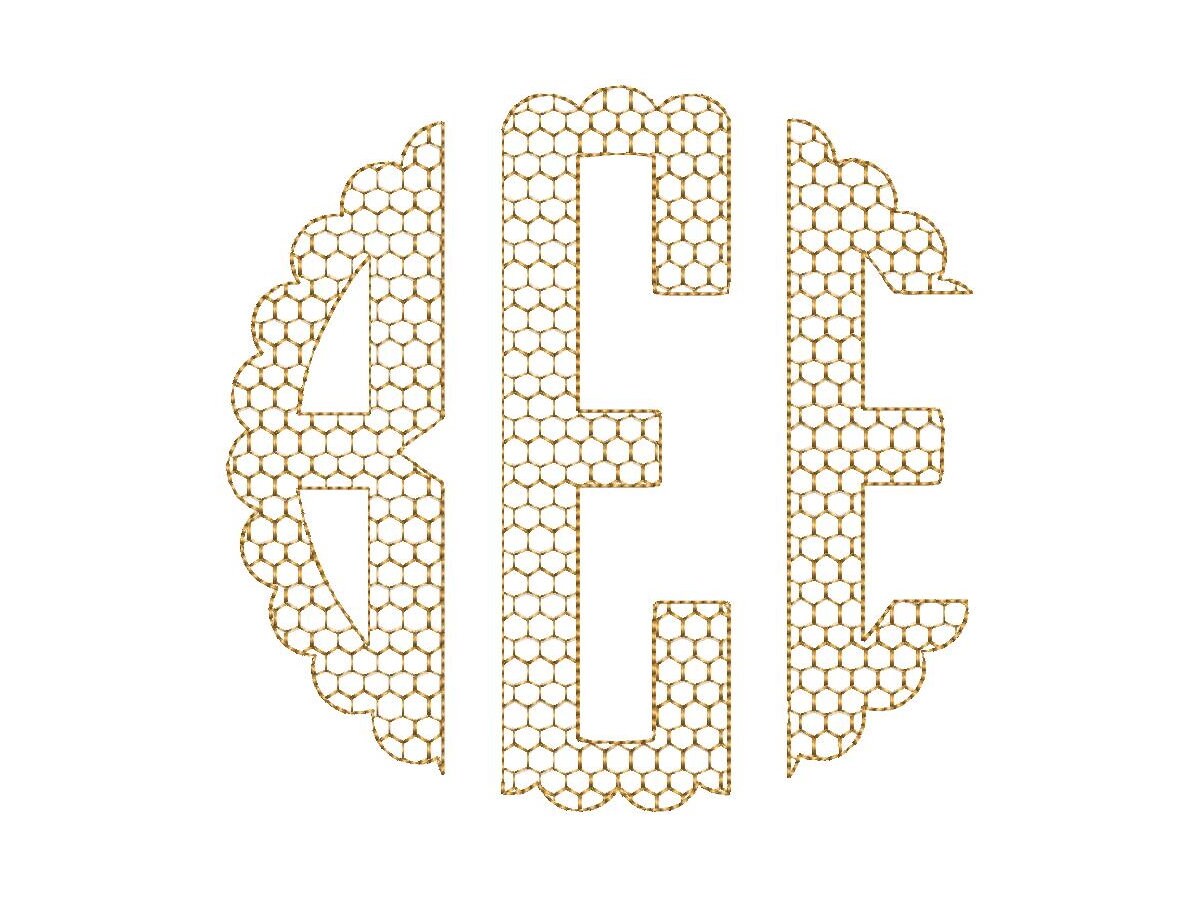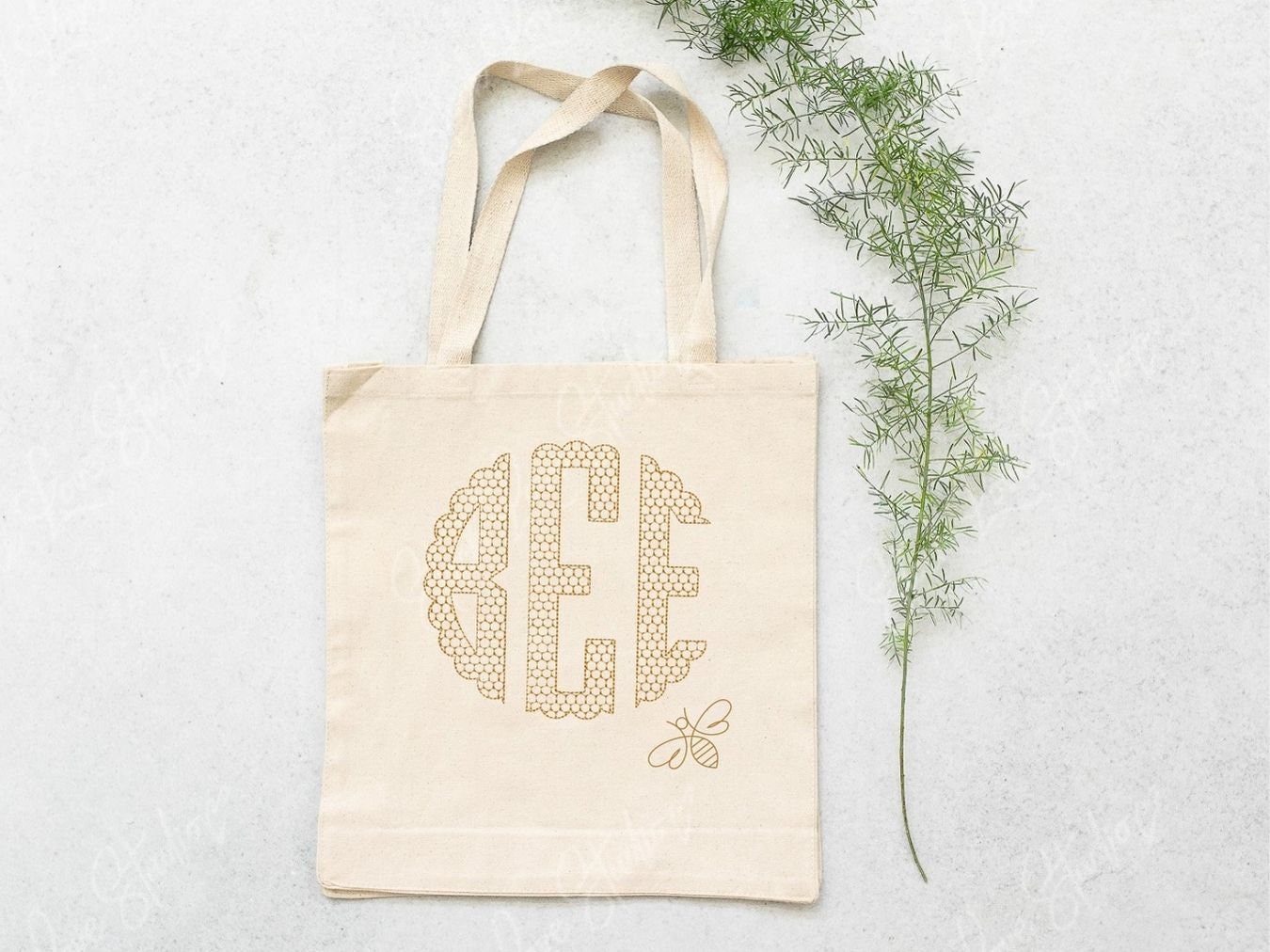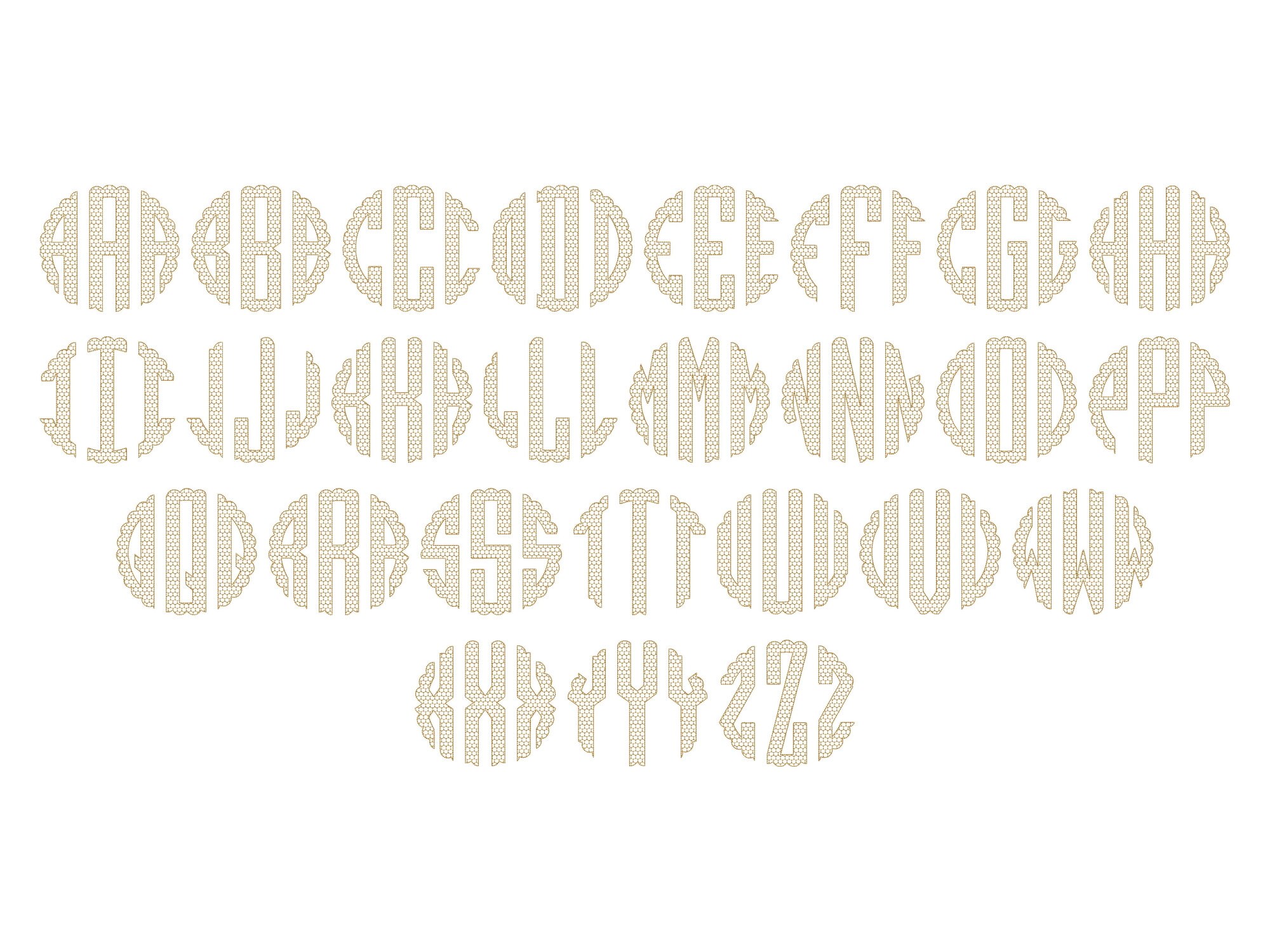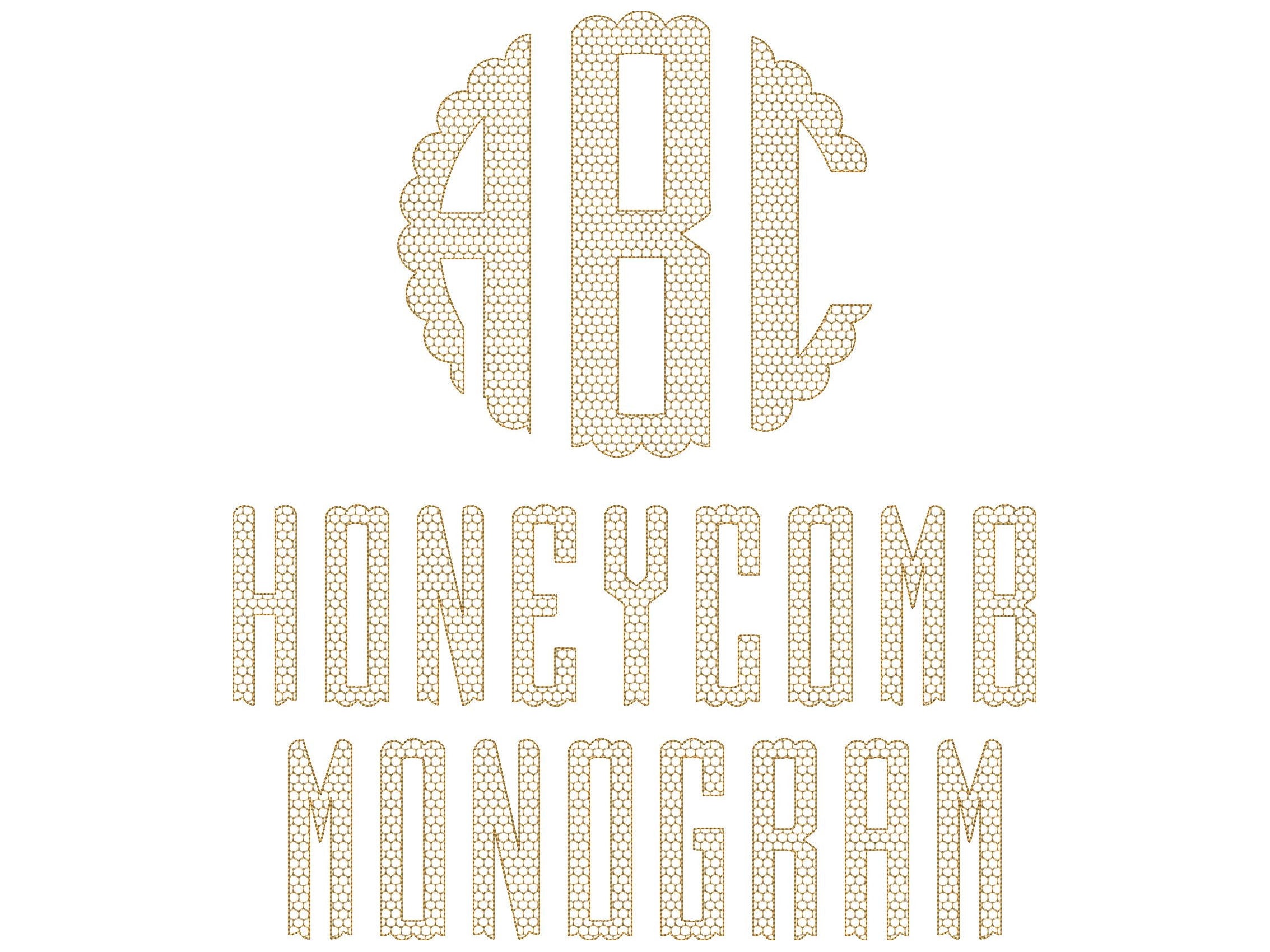
Scalloped Circle Monogram Honeycomb FONT machine embroidery designs, bee lover classic three letter round monogram letters many sizes, BX included
The honeycomb pattern is a part of the design.
This is a light stitch design, and the background fabric looks through. Awesome effect!